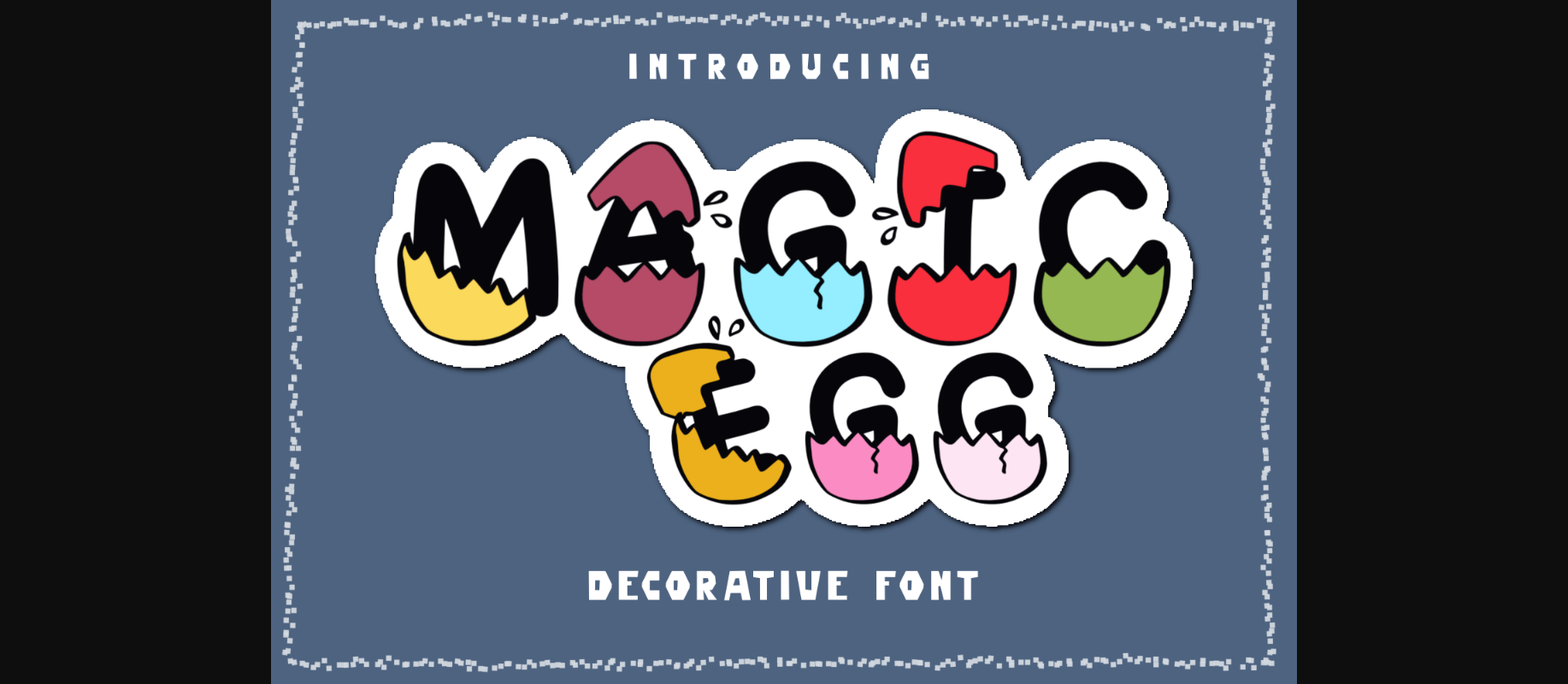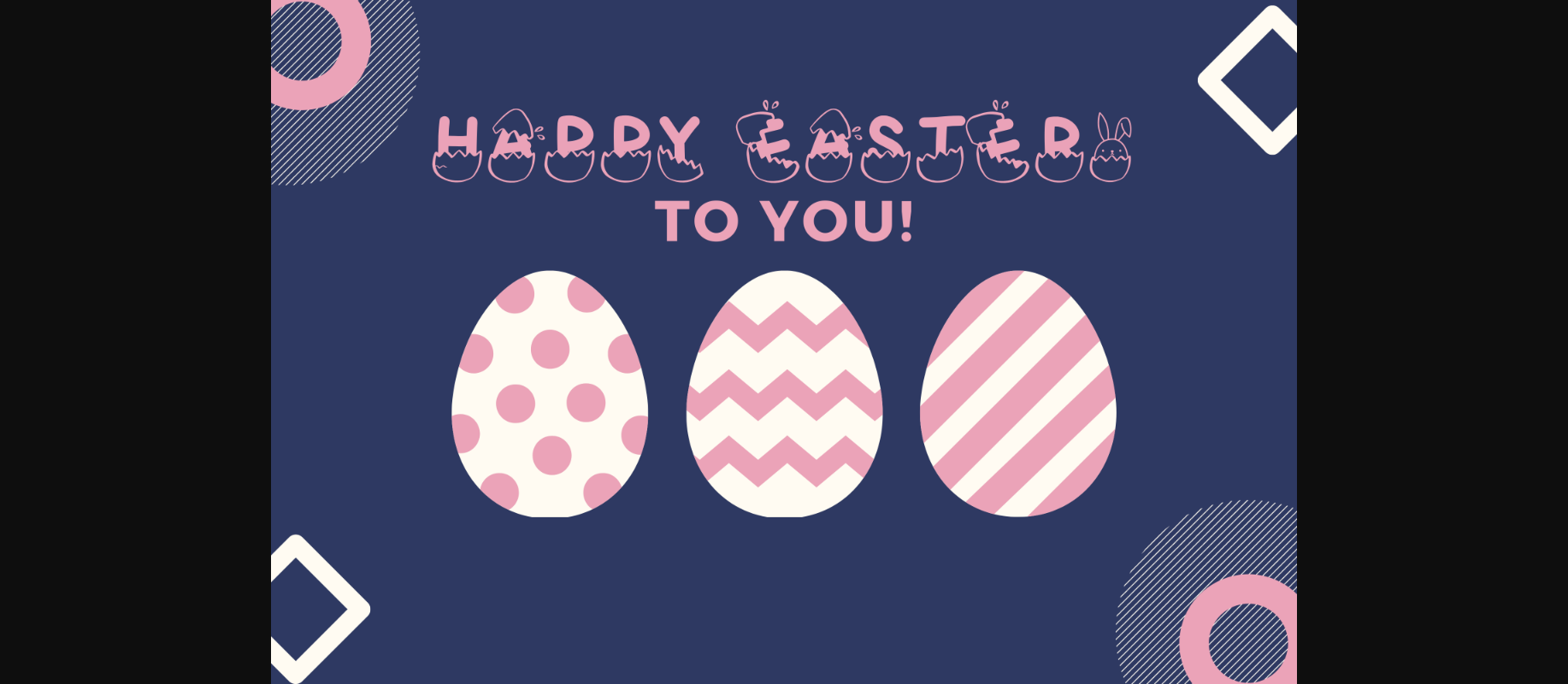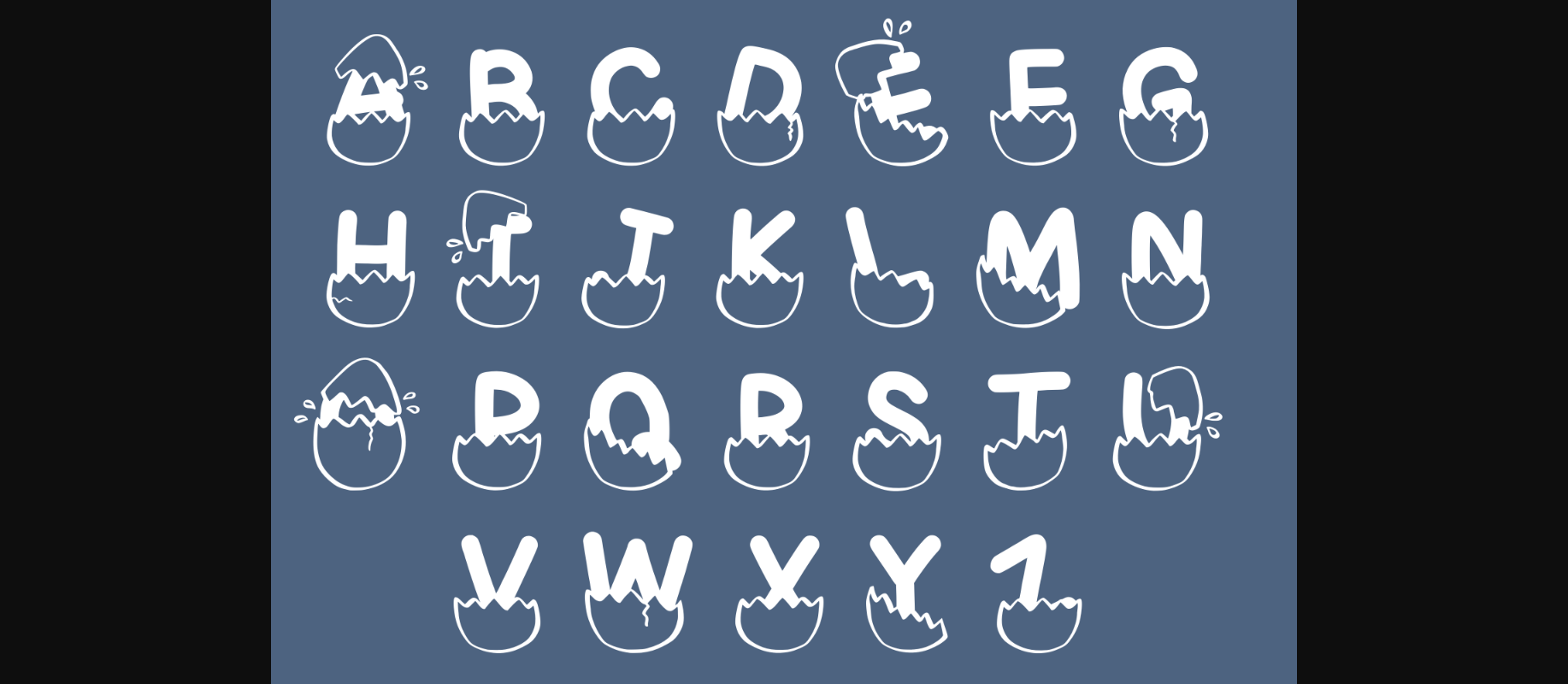
About Magic Eggs Font
Magic Eggs is a unique decorative font that looks perfect for Easter or children artworks. It is good for decoration classrooms or Easter parties. It is also the right match for sticker designs and various other creations.